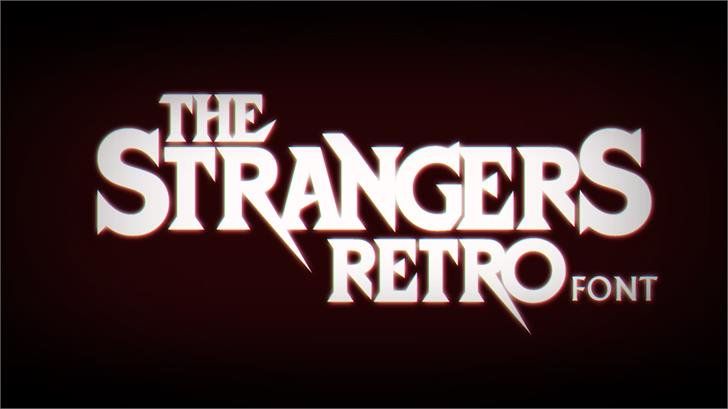
Strangers Retro Font
“The Strangers: Prey at Night” Movie intro font. All rights reserved. This font contains different capital and small letters. Also here set of numbers and additional symbols. This typeface will look good on any vintage style design like labels, badges, posters, t-shirts etc.